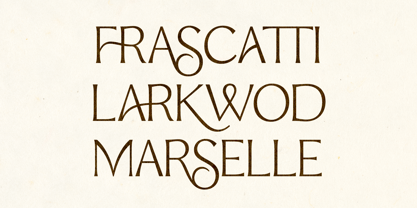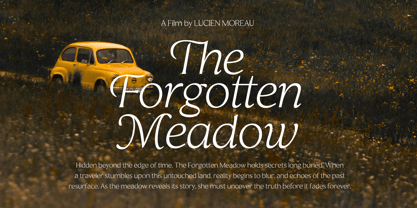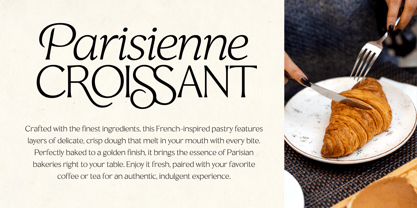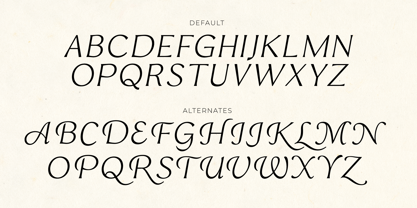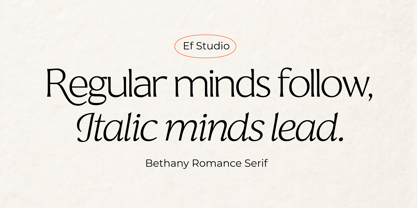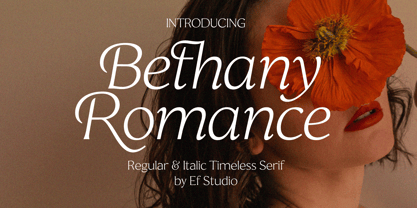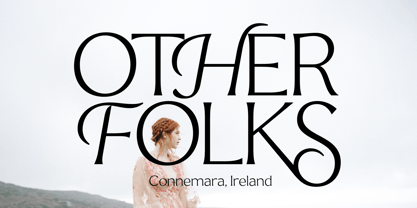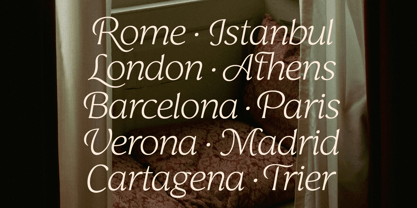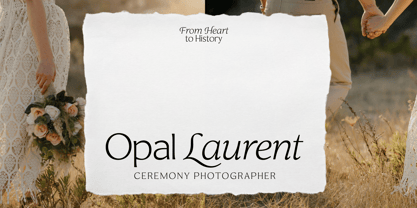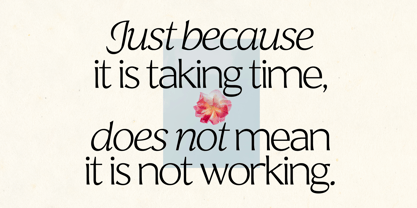
Bethany Romance
by Ef Studio
The Bethany Romance Font Family was designed by Luthfi Fauzi and published by Ef Studio. Bethany Romance contains 2 styles and family package options.
Bethany Romance is a refined semi-serif font that blends classic sophistication with contemporary charm. The regular style features sleek, high-contrast strokes, while the italic alternates introduce graceful swashes, adding a touch of luxury to any design. Perfect for branding, editorials, and elegant invitations.